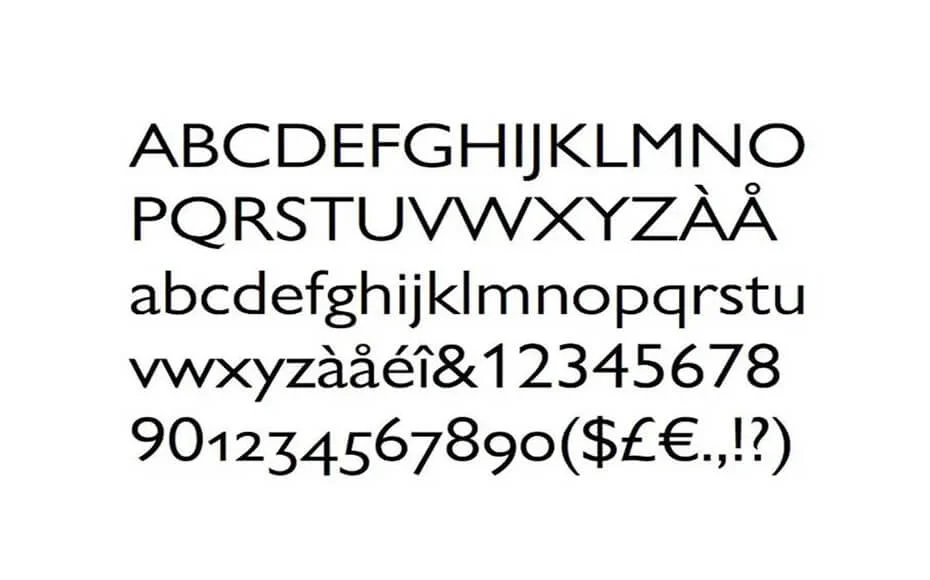
Can’t you see this clean sans serif font on the cover of a book or magazine? Cereal Magazine Font is simple and versatile enough to be used in a wide range of projects.
This typeface was designed by a font foundry known as Monotype. This typeface is based on Style Magazine, designed by Rich Stapleton.
Cereal magazines use two fonts. The first is a serif typeface “Garamond Font” while the second is a sans serif typeface “Gill Sans Font”.
You can use this great quality font for various purposes. Like poster making, title designing, logo design, greeting cards, an invitation or official card design, and even in the printing industry. Moreover, it is also a great way to use them for developing website templates or apps.
This typeface comes in more than fifty unique glyphs and two styles including bold and regular.